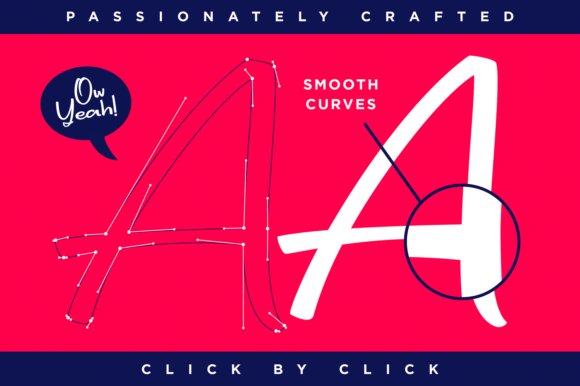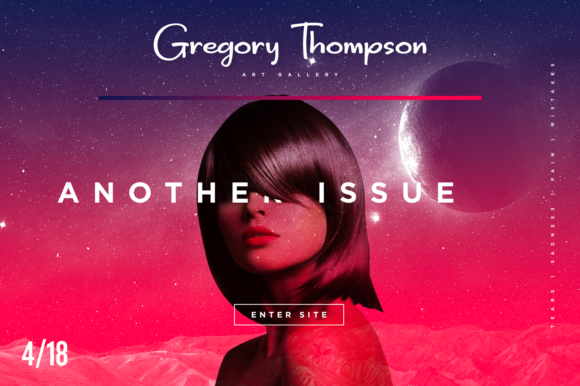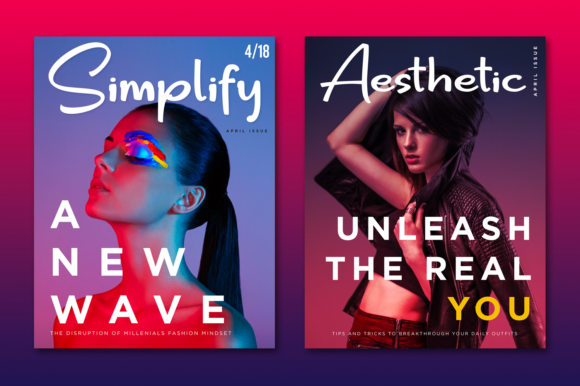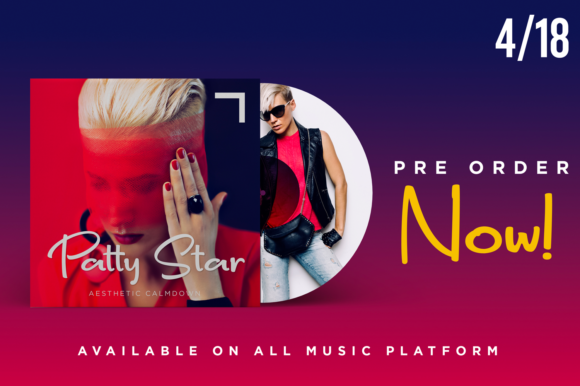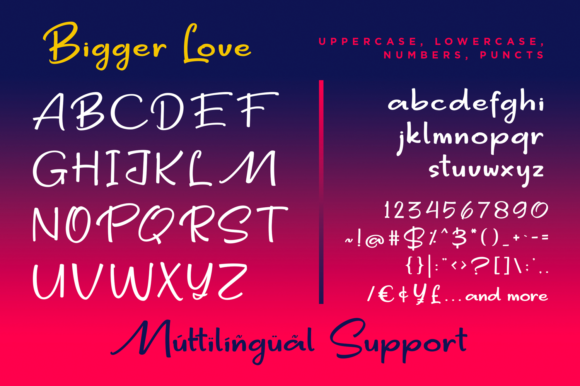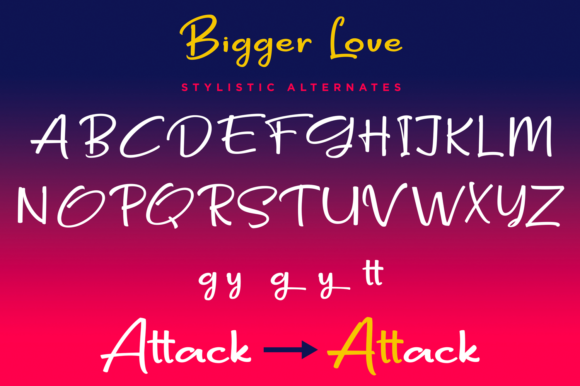
The Designer’s Delight: Bigger Love Font
I’ll never forget the moment I stumbled upon the Bigger Love font. I was working on a project for a client who wanted a elegant and delicate look, but I was struggling to find the perfect font. That’s when I saw it – Bigger Love. Its beautiful, handwritten letters immediately caught my attention, and I knew I had found the one. In this article, I’ll share my experience with Bigger Love, its features, and how to make the most of it in your designs.
A Personal Review: What I Love About Bigger Love
Bigger Love is a masterpiece, and here’s why:
• Delicate and elegant: The font’s letters are beautifully crafted, exuding a sense of sophistication and refinement.
• Well-balanced letters: Each letter is carefully designed to ensure perfect harmony and balance, making it a joy to read and use.
• 🌈 Versatile style: Bigger Love is incredibly versatile, making it suitable for a wide range of design projects, from wedding invitations to branding and advertising.
While Bigger Love is an amazing font, there are a few things to keep in mind:
• 🤔 Limited use in body text: Due to its elegant and delicate nature, Bigger Love might not be the best choice for long body text. It’s better suited for headings, titles, and short paragraphs.
• ⚠️ Some letters may require manual kerning: As with any font, you might need to adjust the kerning of certain letters to achieve optimal results.
The Story Behind Bigger Love
Bigger Love was designed with love and care by a talented type designer. The font’s creator aimed to craft a beautiful, elegant script font that would inspire designers and crafters to create stunning designs. While the designer’s story might be fictional, the font’s impact on the design community is real.
What is Bigger Love font best used for? Bigger Love is ideal for creative projects, branding, titles, headings, and short paragraphs.
Is Bigger Love suitable for body text? While it’s possible to use Bigger Love for body text, it’s better suited for headings and titles due to its elegant and delicate nature.